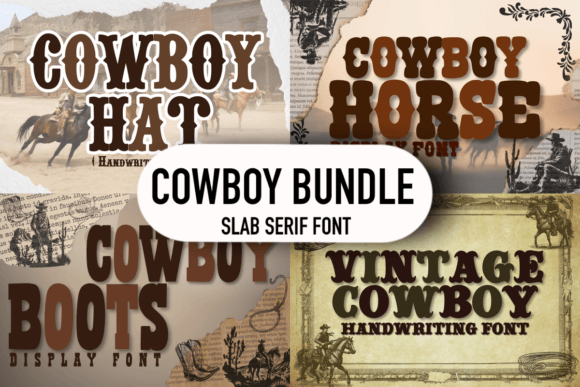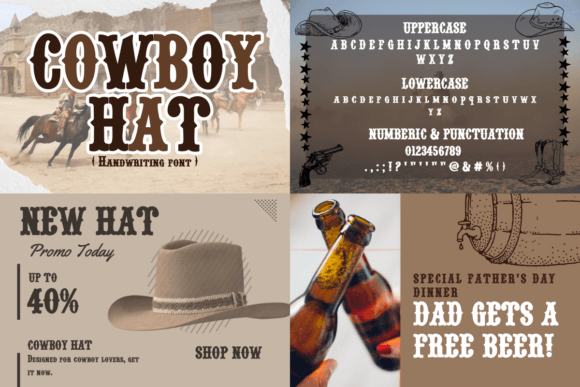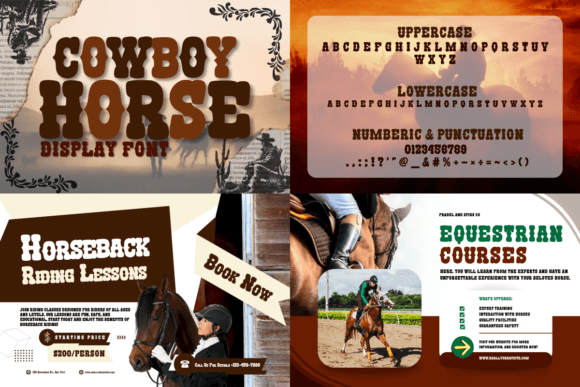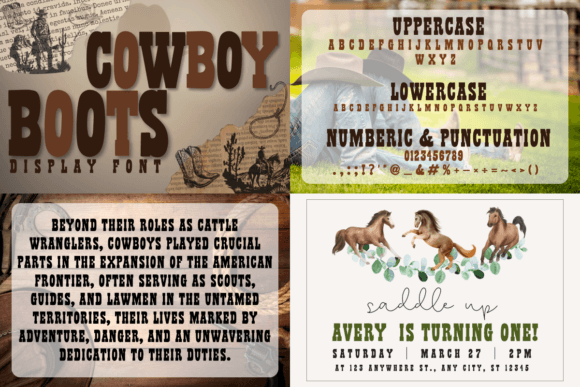
Cowboy Bundle Font
About the Cowboy Bundle Font
The wait is over! The incredible Cowboy Bundle Font is now available for your design toolkit. The Cowboy Bundle is a vintage collection of cowboy-style fonts. Perfect for creating a wild west look, it includes classic, rustic designs for posters, logos, and more. Simple, bold, and full of western charm!
This font family excels in headline applications, branding projects evoking a rugged, vintage aesthetic, and poster designs requiring a bold, attention-grabbing presence. It’s ideal for projects related to Western themes, whiskey brands, or anything requiring a strong, classic feel. However, its low x-height and heavy weight make it unsuitable for body text or UI elements requiring high readability.
For effective pairings, consider complementing the Cowboy Bundle with a clean, geometric sans-serif for a modern contrast, or a classic serif like Garamond or Didot for a more traditional feel. A delicate script font could add a touch of elegance to logos or smaller design elements.
The Cowboy Bundle’s personality is definitively bold and rugged, conveying a sense of adventure and authenticity. It projects strength and a timeless quality, making it perfect for brands aiming for a confident and established image.
Cowboy Bundle Font Example